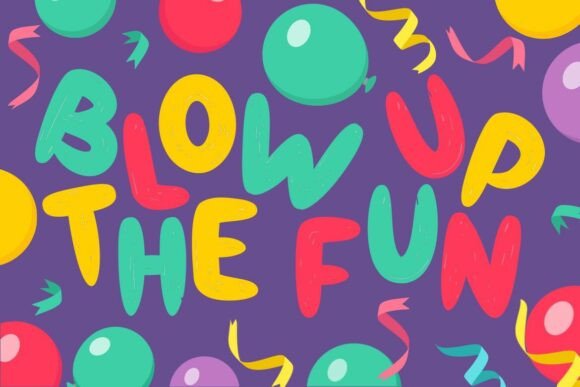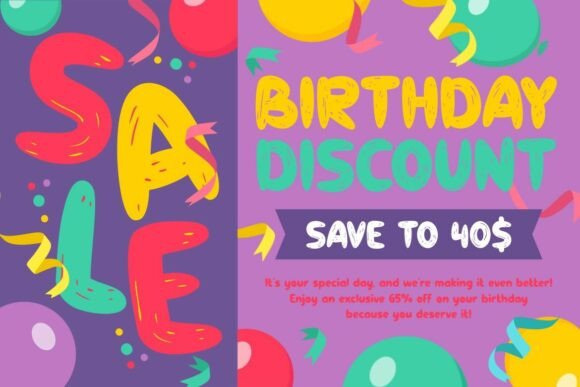
Introduction to Party Balloon Font
Have you ever sat at your desk, staring at a blank canvas, trying to come up with the perfect design for a birthday invitation or party flyer? You know the feeling – it’s like the creative well has run dry. But then, suddenly, a spark of inspiration hits, and you start envisioning a design that’s playful, colorful, and simply fun. That’s where the Party Balloon Font comes in – a lively and cheerful typeface designed to bring excitement to any celebration-themed project.
This font is more than just a design element – it’s a key to unlocking the perfect creative project. With its soft, rounded letters and vibrant colors, the Party Balloon Font is the ideal choice for designers looking to add a touch of whimsy and joy to their work. Whether you’re creating invitations, greeting cards, posters, or social media graphics, this font is sure to make your message pop.
And the best part? The Party Balloon Font is available for free download, making it a high-quality design resource that won’t break the bank. With its transparent background and slightly textured look, this font is perfect for designers who want to add a little extra something special to their projects.
Key Features of Party Balloon Font
- Unique and playful design ideal for creative projects, parties, and celebrations
- Includes 3 variations of balloons with different colors and patterns, allowing for endless design possibilities
- Features a transparent background, making it easy to customize and integrate with any design
Honest Review: Party Balloon Font
As a designer, I’m always on the lookout for unique and creative fonts to elevate my projects. Recently, I stumbled upon the Party Balloon Font, and I must say it’s a fun and playful addition to any design.
Here are some things that work well: ✨ The font’s whimsical design makes it perfect for children’s parties, birthday invitations, or any other creative project that needs a pop of color. ✨ The transparent background allows for easy customization and makes it easy to layer over other design elements. ✨ It’s also available for free download, making it a great resource for designers on a budget.
However, there are a few limitations: ⚠️ The font’s design may not be suitable for all types of projects, such as corporate or professional designs. ⚠️ Some users may find the font a bit too childish or over-the-top.
Overall, I’d say the Party Balloon Font is a great addition to any designer’s toolkit. It’s high-quality, easy to use, and adds a fun touch to any project. If you’re looking for a creative way to add some personality to your designs, this font is definitely worth checking out.
- Perfect for children’s parties and birthday invitations
- Easy to customize with transparent background
Party Balloon Font is perfect for adding a pop of color and fun to your presentations and documents, making it a great design resource for any creative project.
Party Balloon Font is perfect for:
- Birthday invitations and party decorations
- Wedding invitations and decorations
Yes, the Party Balloon Font includes a transparent background option, making it easy to use in designs with complex backgrounds or textures. The font is also designed to be highly legible, even when used on dark or busy backgrounds.